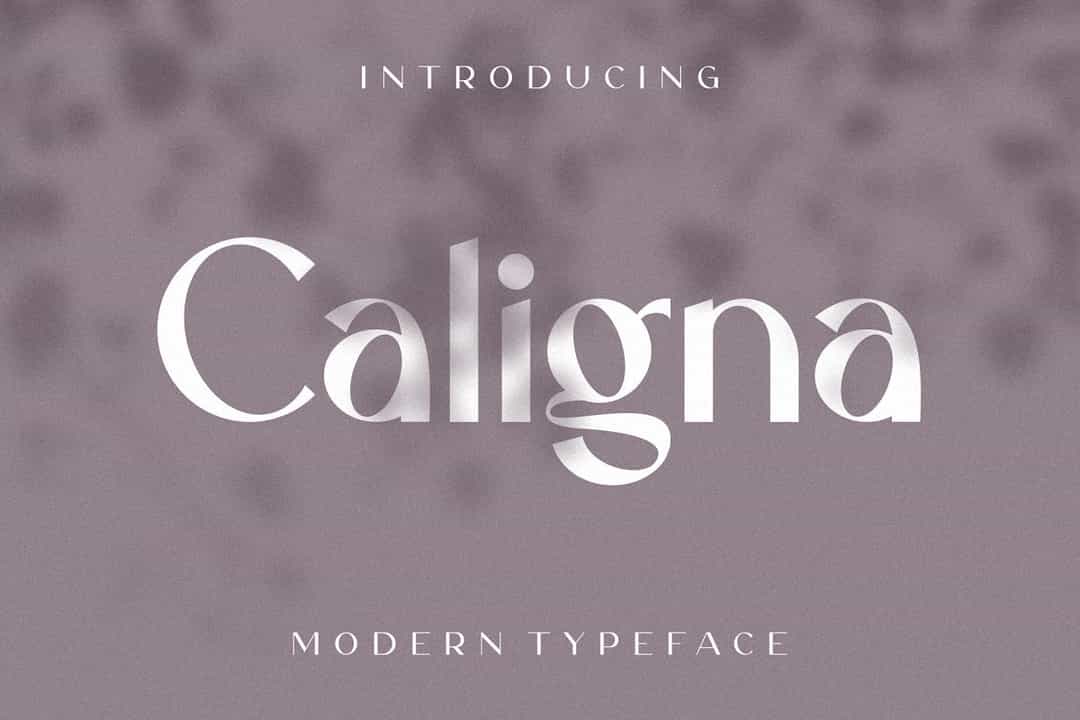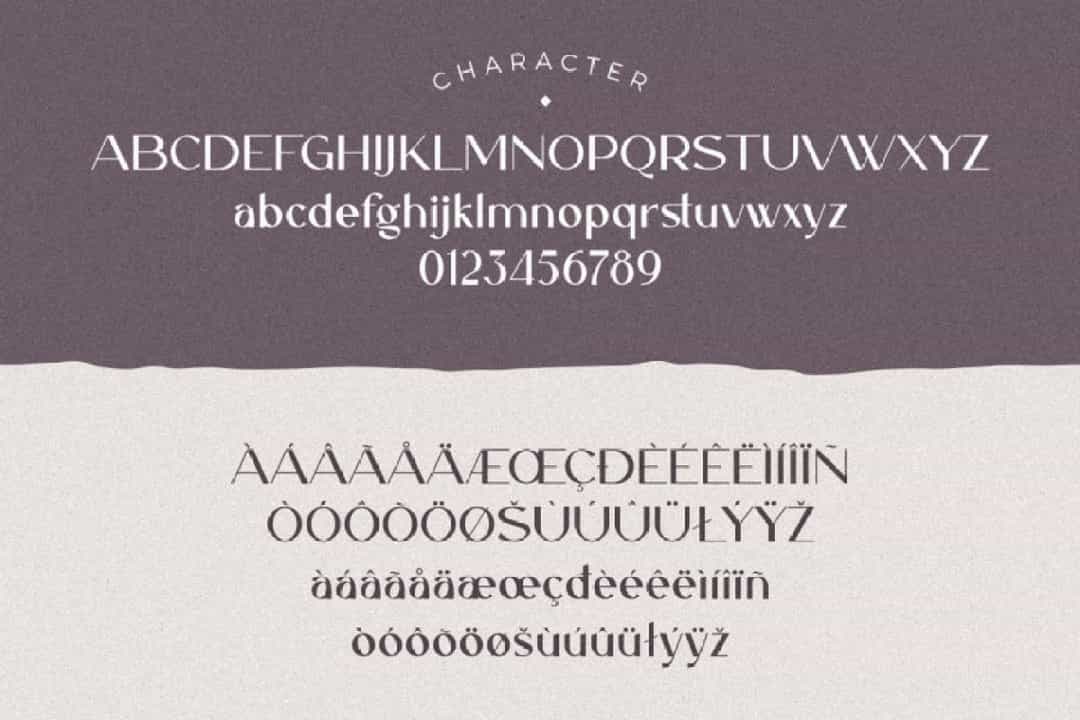
Caligna is a well designed sans typeface that has a both old and new appeal to it. Make stunning wedding invitations. This can be a great option for your next layout for magazine or any other graphic that seems to need a touch of elegance and traditionalism.